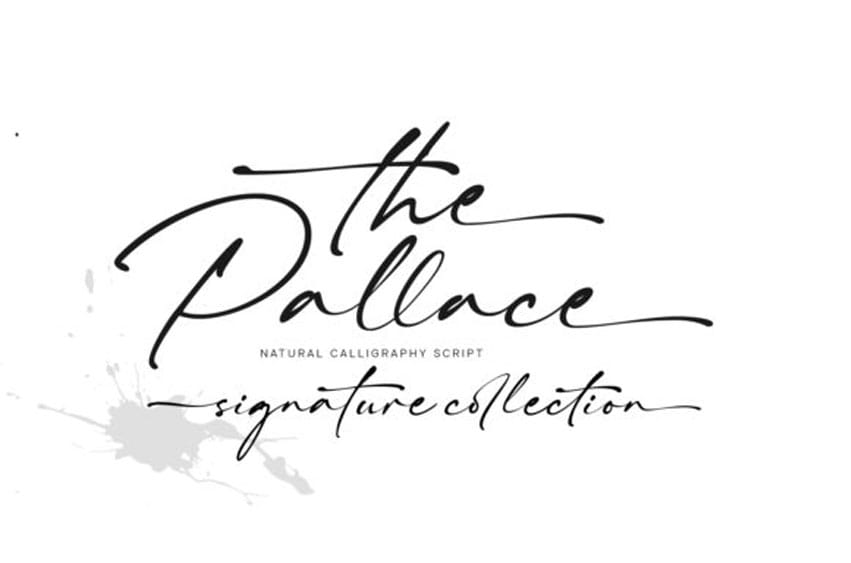
The Pallace Font is a handwritten font that feels equally charming and elegant. Fall in love with its incredibly versatile style and use it to create gorgeous wedding invitations, beautiful stationery art, eye-catching social media posts, and much more!
The Pallace Font Preview